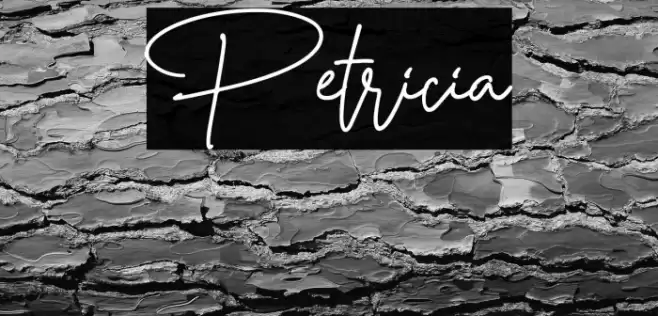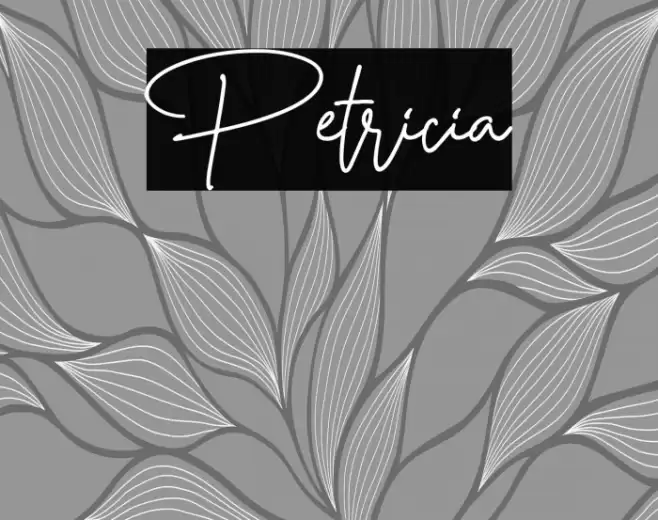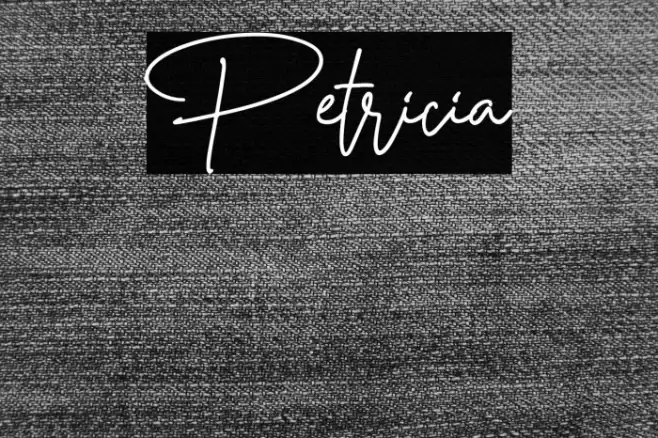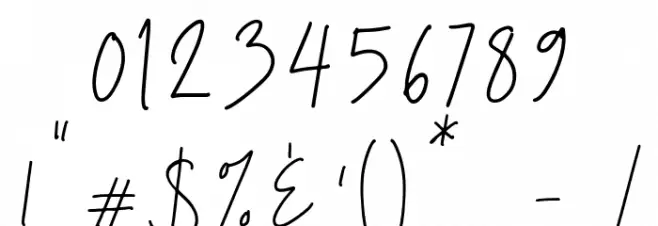
Petricia Font
Petricia Description
This font features a stylish, handwritten aesthetic with a modern flair. The uppercase letters are elegantly elongated with a slight slant, giving them a dynamic and fluid appearance. The lowercase letters maintain a consistent flow, with smooth curves and loops that enhance the handwritten feel. Numbers are clear and legible, with a slight tilt that matches the overall style of the font. Special characters are thoughtfully designed to complement the letterforms, maintaining the same fluidity and elegance. This font is perfect for projects that require a personal touch, such as invitations, greeting cards, or branding materials.
A modern, handwritten font with elegant, fluid strokes from Uncategorized fonts.